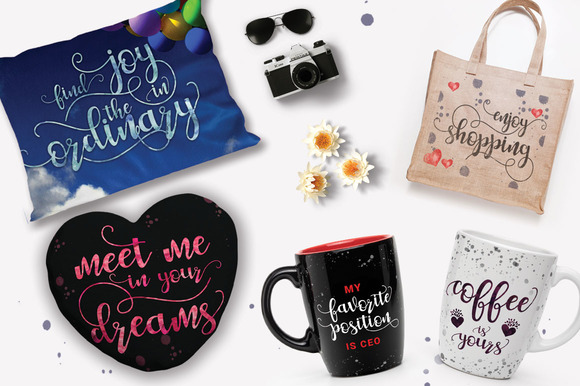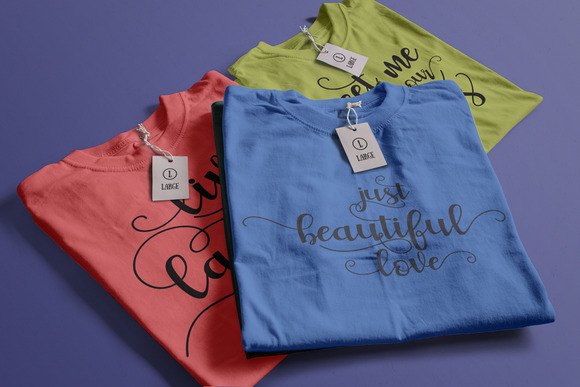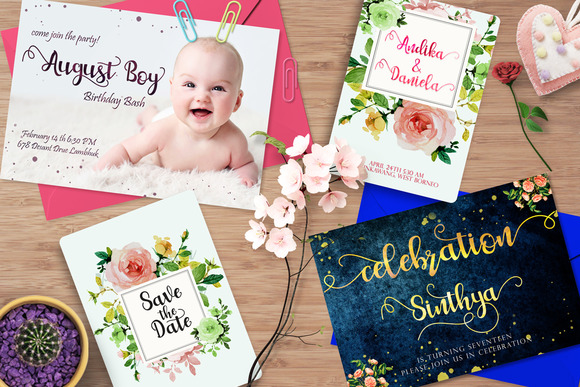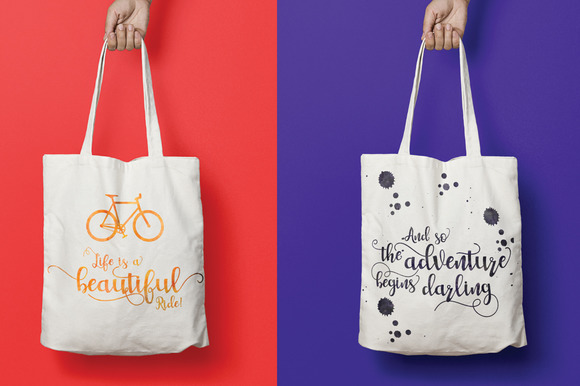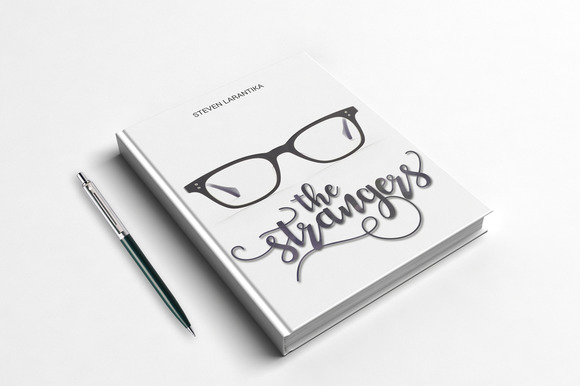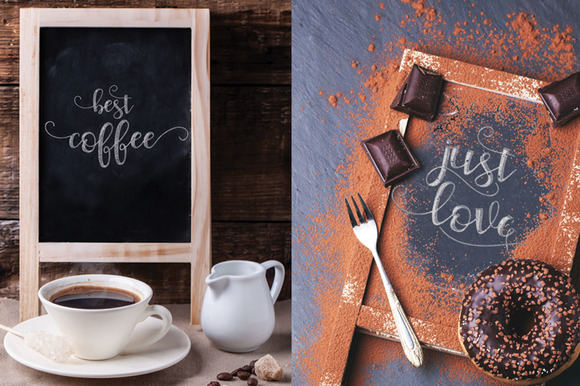
Introducing Gladysta Font: The Modern Calligraphy Typeface for Creative Designs
In the world of typography, a new font has emerged that is taking the design community by storm. Gladysta Script, a modern calligraphy typeface, has been making waves with its fresh and beautiful style. This stunning font combines the elegance of brush lettering with the warmth of traditional handwriting, making it perfect for a wide range of creative projects.
What Makes Gladysta Font So Special?
Gladysta Script boasts a unique and distinctive feature – a dancing baseline that gives it a lively and dynamic feel. This characteristic makes it an ideal choice for designers and crafters looking to add a touch of personality to their work. Whether you’re creating personal branding materials, wedding invitations, or greeting cards, Gladysta Font is sure to make your designs stand out.
Gladysta Font is incredibly versatile and can be used for a multitude of design projects. Some of the most popular uses for this font include:
- Personal Branding: Create a lasting impression with Gladysta Font on your business cards, letterheads, and other marketing materials.
- Wedding Invitations: Add a touch of elegance and sophistication to your wedding stationery with this beautiful calligraphy font.
- Greeting Cards: Make your greeting cards, such as birthday cards, thank-you cards, and Christmas cards, truly special with Gladysta Font.
- Posters and Quotes: Use Gladysta Script to create eye-catching posters and quotes that are sure to grab attention.
- Stamps: Create custom stamps for your business or personal use with this lovely font.
Why Designers and Crafters Love Gladysta Font
Gladysta Font has quickly become a favorite among designers and crafters due to its unique characteristics and versatility. Here are just a few reasons why:
- Modern and Fresh: Gladysta Script has a modern and fresh feel that makes it perfect for designers looking to create contemporary designs.
- Elegant and Sophisticated: The font’s elegant and sophisticated style makes it ideal for creating high-end designs.
- Easy to Read: Despite its ornate style, Gladysta Font is easy to read, making it perfect for body text and captions.
- Customizable: Gladysta Script can be easily customized to fit your design needs, making it a great choice for designers who want to create unique and personalized designs.
Tips for Using Gladysta Font in Your Designs
To get the most out of Gladysta Font, here are a few tips to keep in mind:
- Use it as a Headline Font: Gladysta Script makes a great headline font due to its bold and attention-grabbing style.
- Pair it with a Sans-Serif Font: Pair Gladysta Font with a sans-serif font, such as Arial or Helvetica, to create a beautiful contrast.
- Experiment with Colors: Gladysta Script looks great in a variety of colors, so don’t be afraid to experiment and find the perfect hue for your design.
- Use it for Emphasis: Use Gladysta Font to add emphasis to certain words or phrases in your design.